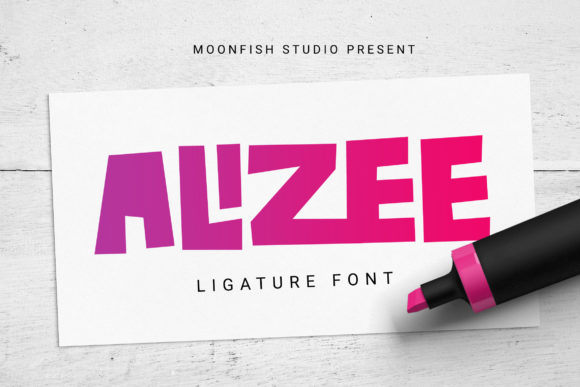
The Quest for the Perfect Font: Discovering Alizee
I still remember the frustration of working on a project, hours spent crafting the perfect design, only to be held back by one thing: the font. It was 2019, and I was tasked with creating a cheerful logotype for a new client. I scoured font libraries, but nothing seemed quite right. That was until I stumbled upon Alizee, a cool and modern display font family that instantly caught my eye.
First Impressions: A Love Affair with Alizee
Alizee is more than just a font – it’s a design statement. With its original and modern style, it’s perfect for creating eye-catching logotypes and titles. Here are a few things I love about Alizee:
- ✨ Unique and modern design that’s sure to turn heads
- 🔥 Highly versatile, suitable for a wide range of design projects
The Honest Review: Weighing the Pros and Cons
While Alizee has quickly become one of my go-to fonts, it’s not without its quirks. Here are a few things to consider:
- ⚠️ Some users may find the font a bit too bold for certain design applications
- 🤔 Limited availability of certain characters, which can be a drawback for specific projects
The Story Behind Alizee: Designer Inspiration
Alizee was designed with the modern designer in mind. Its creator sought to craft a font that was both stylish and versatile, suitable for a wide range of design applications. The result is a font that’s both unique and accessible.
| What is Alizee’s primary use case? | Alizee is designed for display purposes, making it perfect for logotypes, titles, and headings. |
| Is Alizee suitable for body text? | While Alizee can be used for body text, it’s primarily designed for display purposes and may not be the best choice for longer blocks of text. |